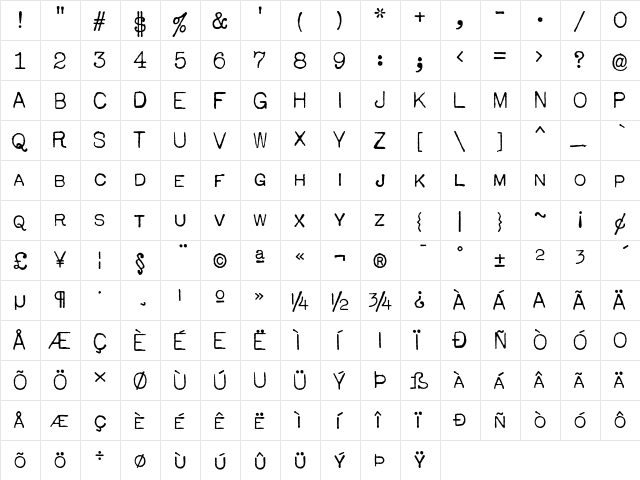
Bank Statement AOE Regular
Design Context for Bank Statement AOE Typeface
Bank Statement AOE offers clean, dependable letterforms without strong stylistic allegiance, making it a practical choice for designers who need flexibility.